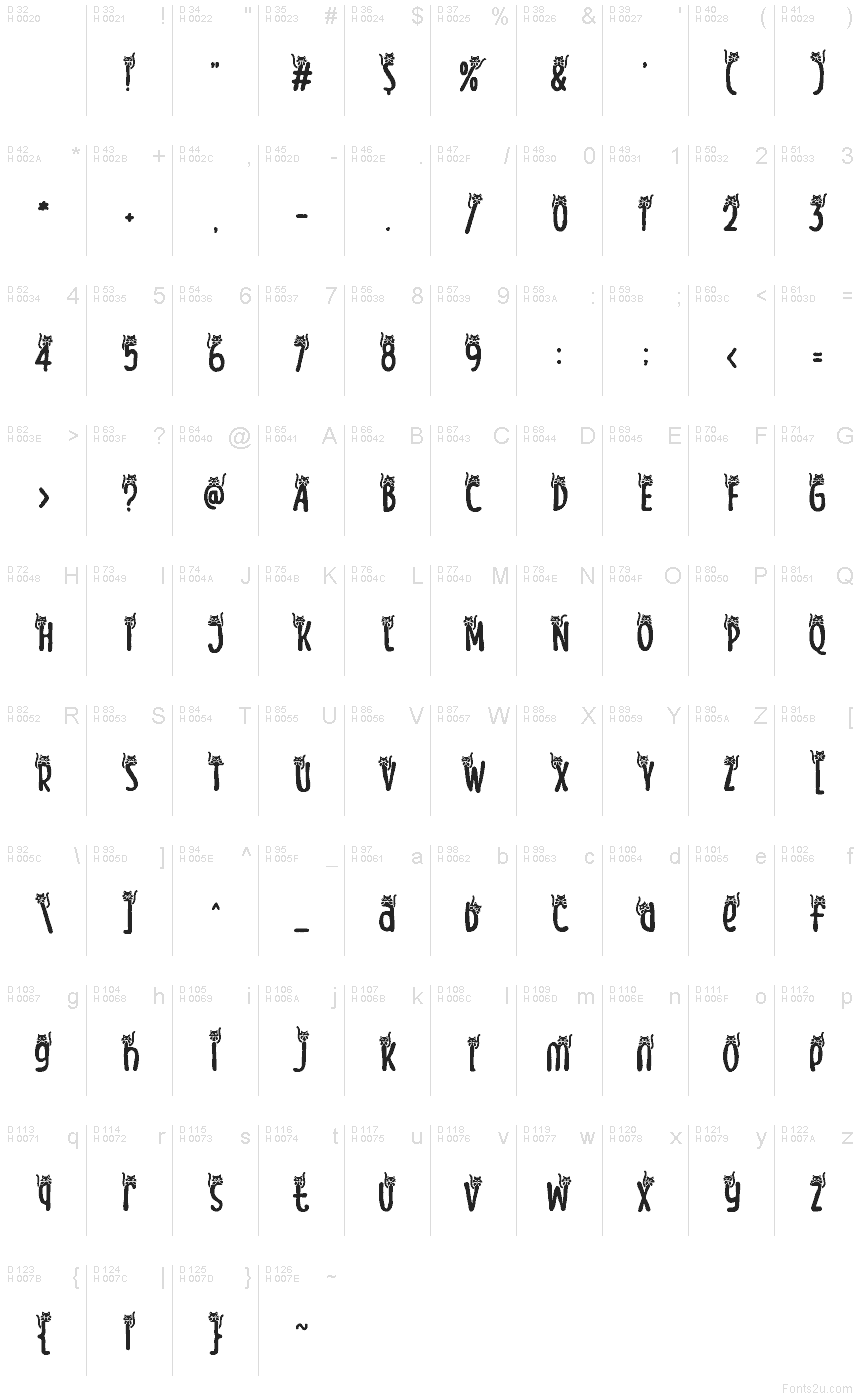
Meow Zilla Cat 5
Meow Zilla Cat 5 font by PutraCetol Studio is a free playful decorative display font. Part of the Meow Zilla family, it stands out with tiny cats perched along the letterforms—ears, paws, and tails shaping the tops and terminals. The strokes are inky and slightly wobbly, giving a hand-drawn bounce that reads lively without getting messy, so headlines pop and stay legible.
Using Meow Zilla Cat 5, you’ll nail kids’ party invites, pet shop branding, animal shelter posters, stickers, packaging for treats and toys, and social posts for cat-centric campaigns. This free font’s tall, friendly rhythm holds together at larger sizes. Pair it with a clean, rounded sans for body copy to keep the mischief focused in the headline.